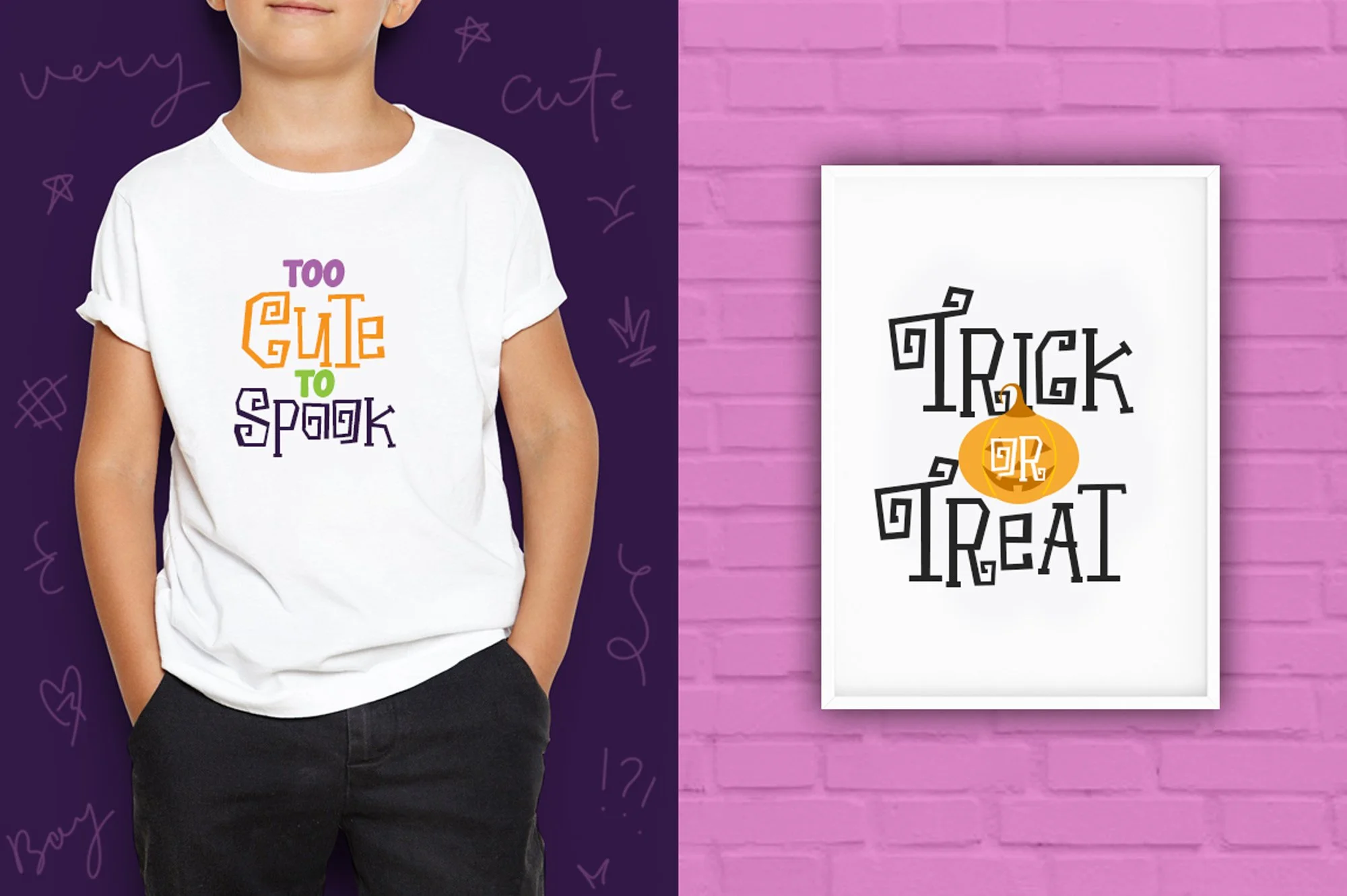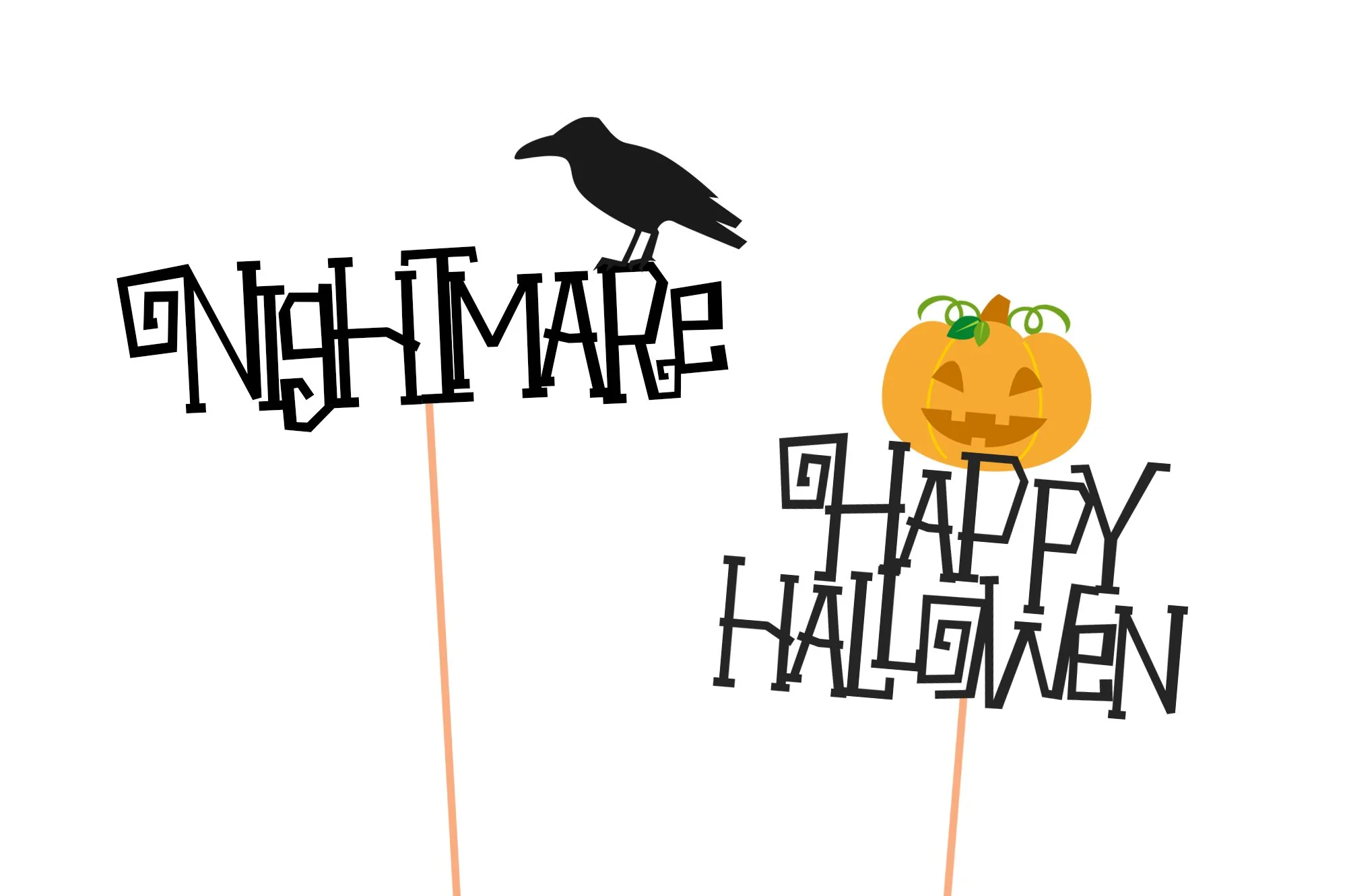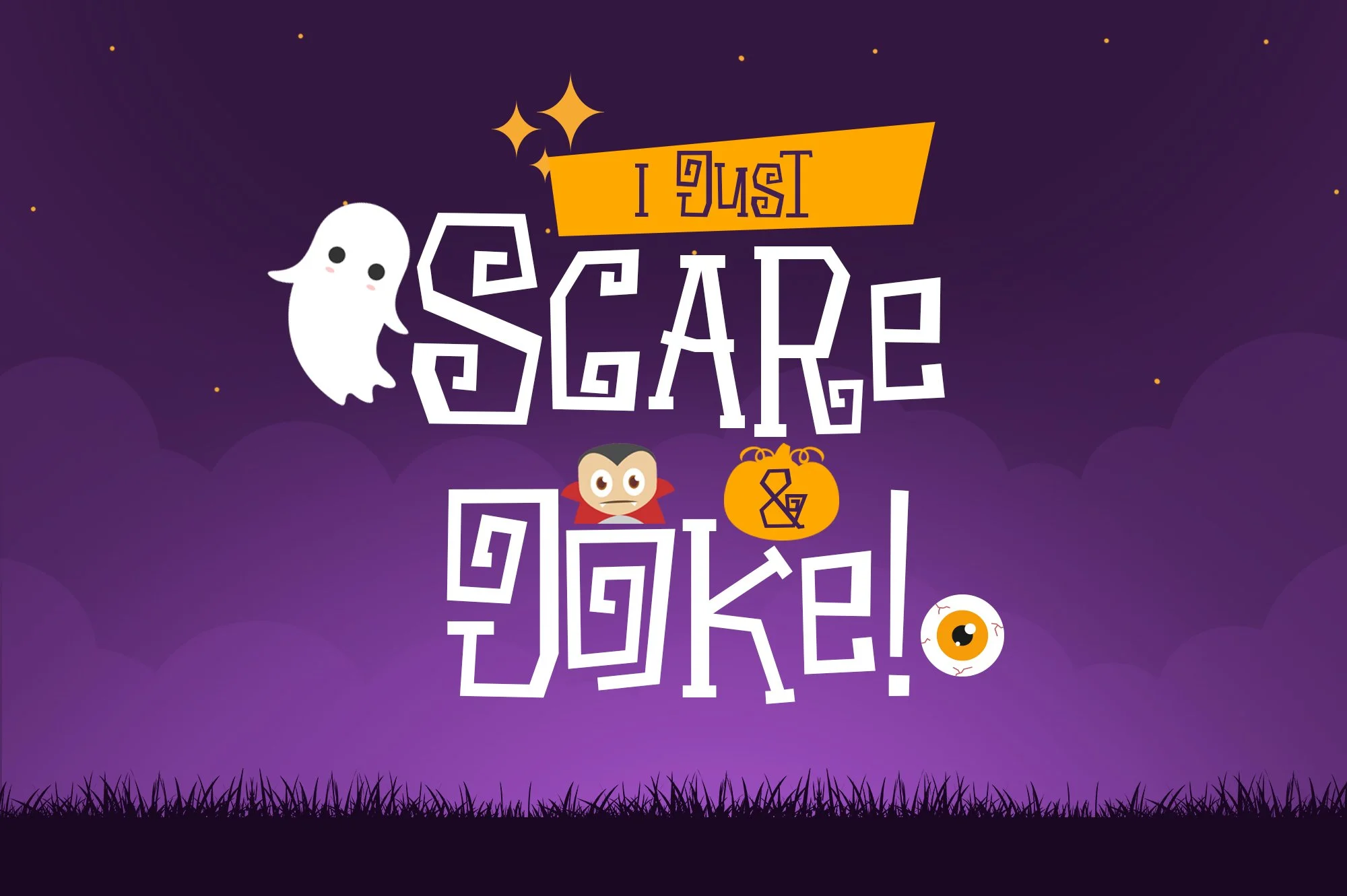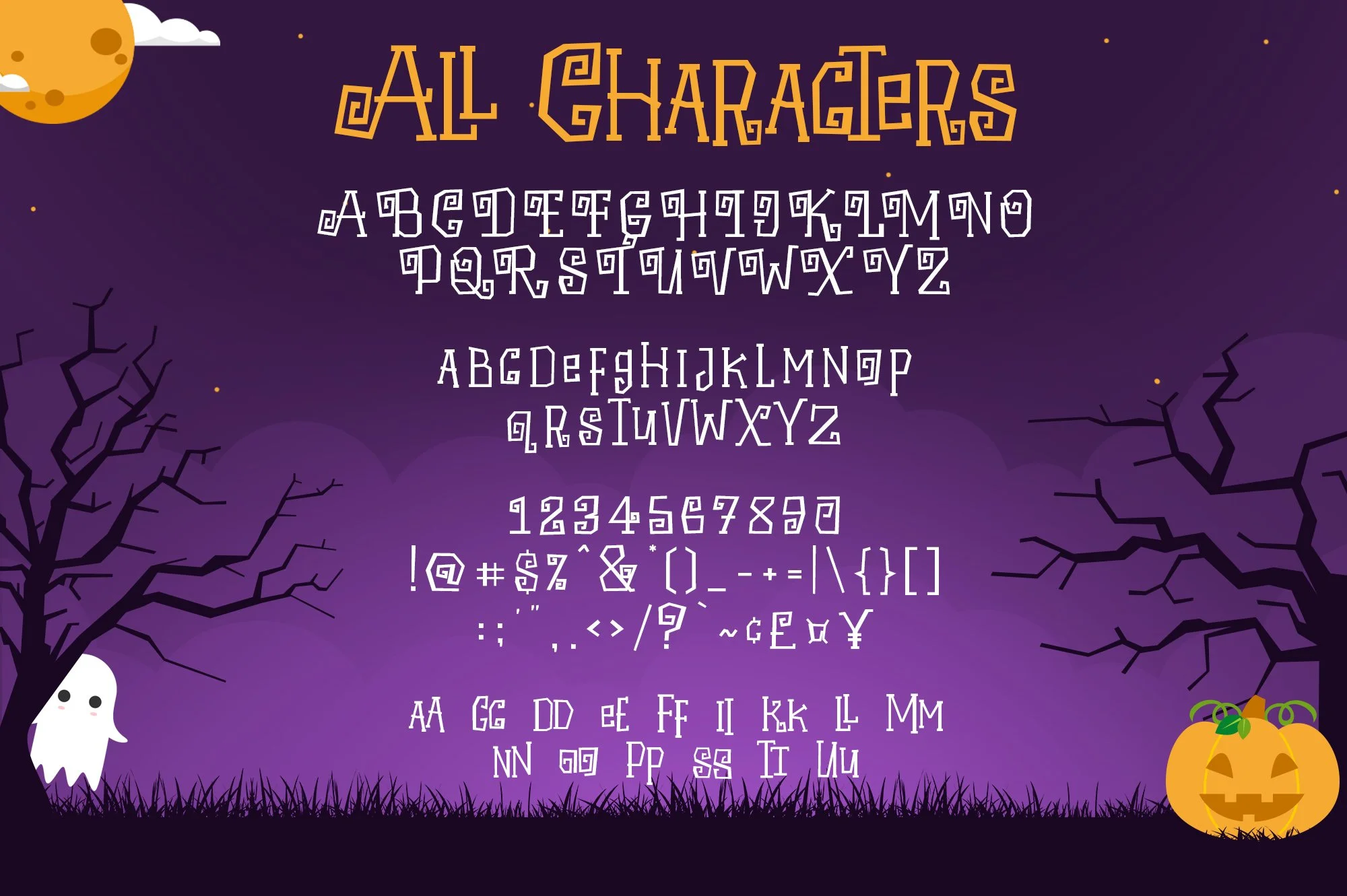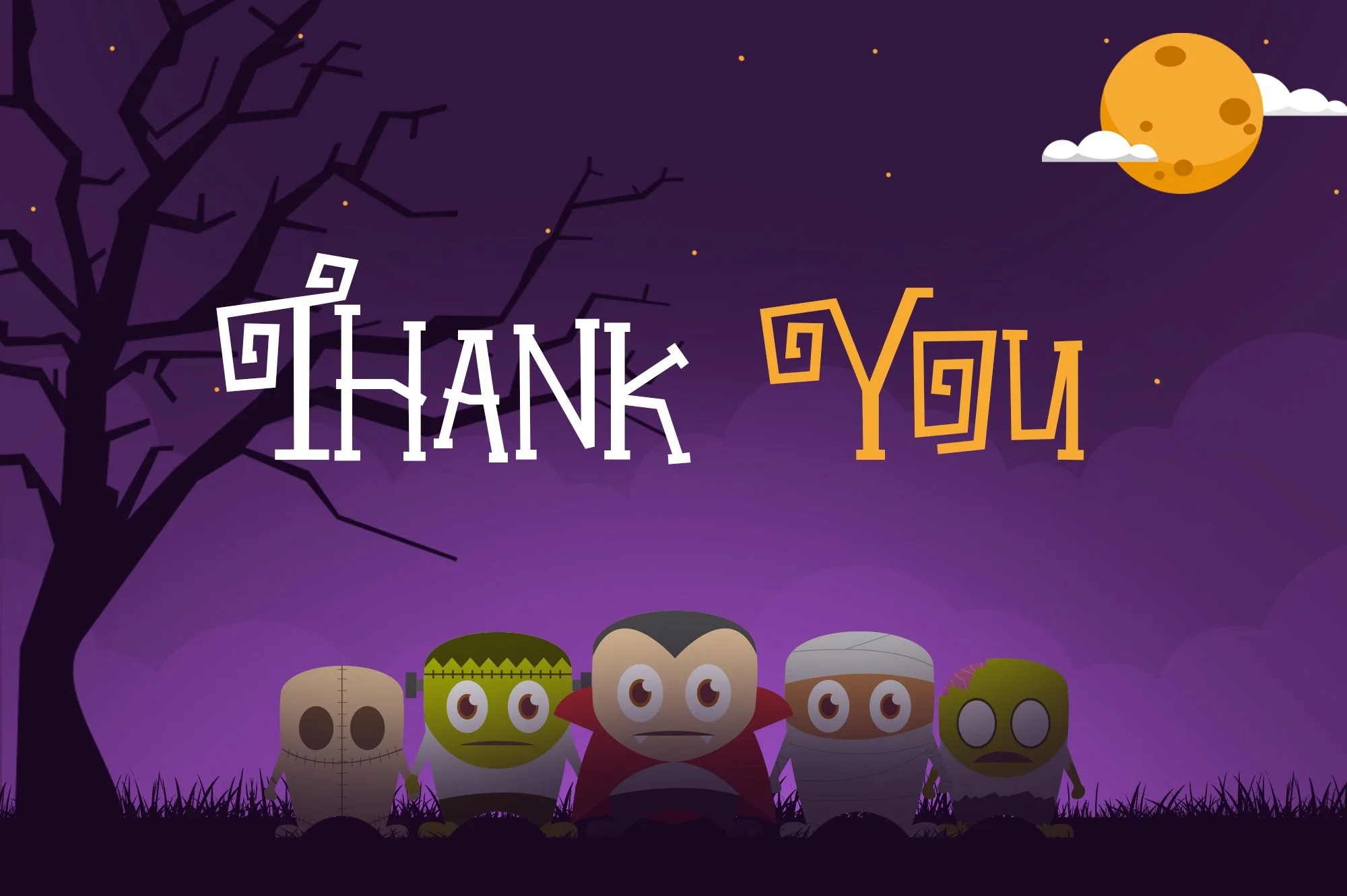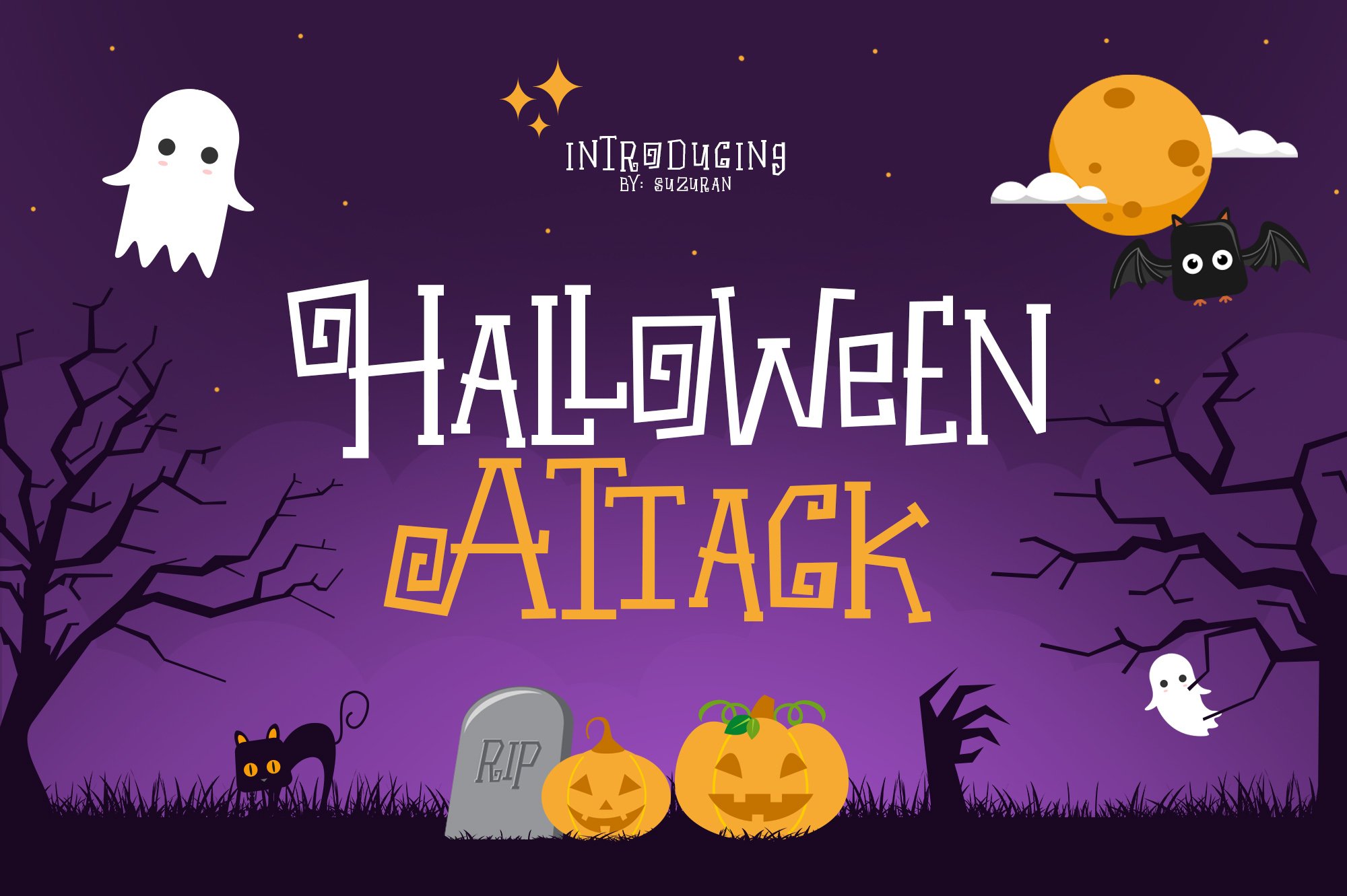
This aggressive font is perfect for intense Halloween horror events, attack-themed spooky decorations, aggressive Halloween marketing, high-impact Halloween displays, assault-style Halloween invitations, forceful Halloween branding, intense Halloween attractions, aggressive Halloween gaming, powerful Halloween communications, and dynamically attacking Halloween messaging materials.
Halloween Attack Font is exciting because it unleashes the full aggressive power and relentless intensity of Halloween horror through its dynamically crafted letterforms that seem to strike with the supernatural force of a coordinated Halloween assault on the senses. The font features sharp, aggressive characters with attack-inspired proportions and assault details that evoke the spine-shattering atmosphere of Halloween experiences that don't just scare but completely overwhelm audiences with wave after wave of supernatural terror, incorporating razor-sharp flourishes and striking elements that create typography as relentlessly powerful and memorably intense as a perfectly orchestrated Halloween attack that leaves no escape from its supernatural onslaught. Each letter showcases the calculated aggression and overwhelming force that makes attack-themed horror so devastatingly effective, with striking curves and assault accents that transform ordinary text into weapons of psychological warfare that capture the way the most effective Halloween experiences don't just frighten but completely dominate the senses with supernatural intensity that feels like being under attack by forces beyond human comprehension.
The Halloween Attack Font family includes aggressively intense variations: Regular, Bold, Light, Assault, and Strike versions. The collection features special attack elements including strike accents, assault flourishes, aggressive details, and forceful ornaments. Additional components include attack borders, strike frames, aggressive decorations, and dynamically forceful ornamental designs that enhance the font's Halloween attack appeal and create cohesive assault-themed Halloween experiences.
Extreme horror creators and aggressive Halloween enthusiasts will find Halloween Attack Font to be an invaluable weapon for creating overwhelmingly intense Halloween communications that deliver supernatural experiences with the force and relentless power of a coordinated Halloween assault on conventional reality. This aggressively crafted font transforms ordinary Halloween messaging into attack expressions that resonate with audiences seeking Halloween experiences that don't just entertain but completely overwhelm with supernatural intensity that feels like being under attack by forces of pure Halloween terror.
The typeface includes comprehensive character support with aggressive styling that maintains excellent readability while conveying the intense force and assault atmosphere of attack-themed Halloween celebrations. The font's dynamically aggressive design ensures overwhelmingly powerful results across both extreme Halloween applications and professional assault-themed Halloween productions.
Perfect for extreme Halloween events, aggressive horror celebrations, intense Halloween attractions, and overwhelmingly powerful seasonal marketing, this font delivers dynamically aggressive visual impact that communicates supernatural force, overwhelming intensity, and the devastating truth that the most effective Halloween experiences attack audiences with relentless supernatural power that completely dominates conventional reality.